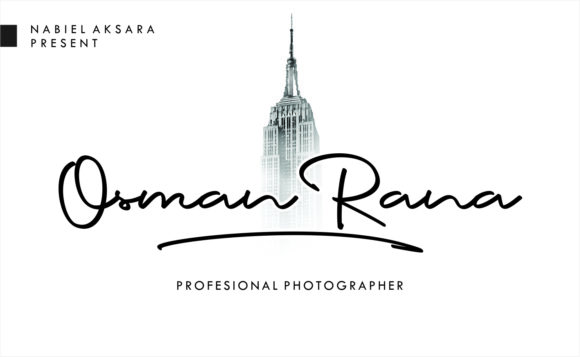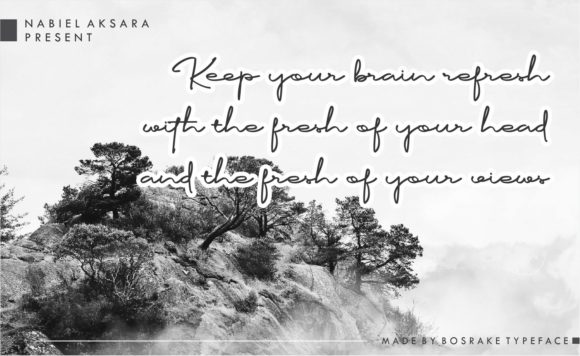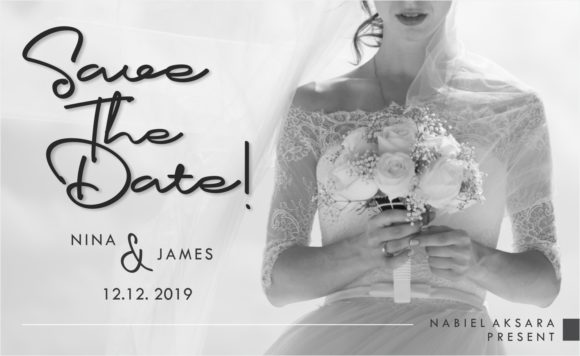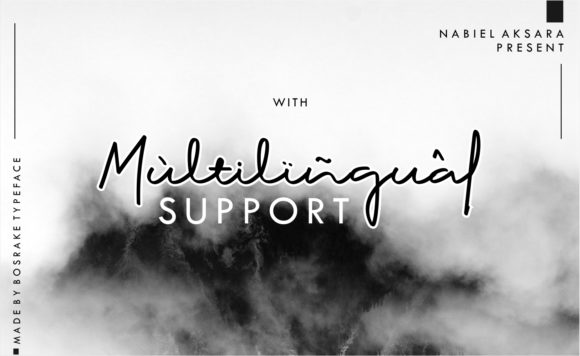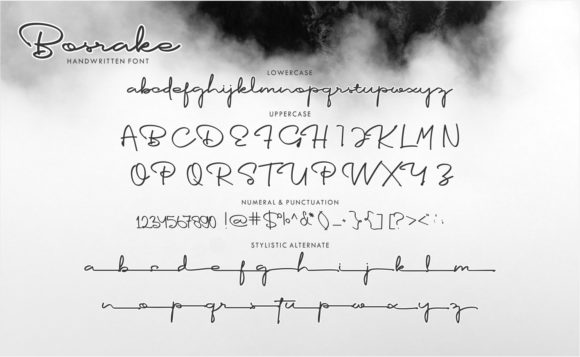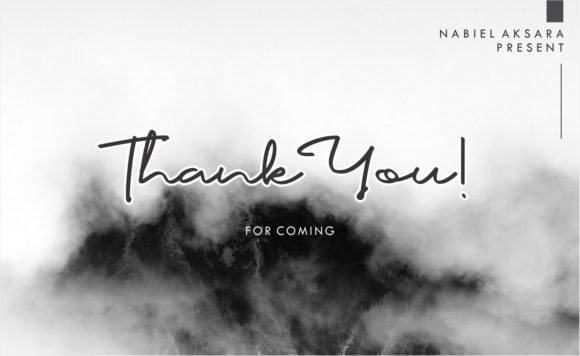
Bosrake Font
About Bosrake Font
Bosrake is a elegant handwritten font with an authentic vibe. It will add a sophisticated touch to any design project.